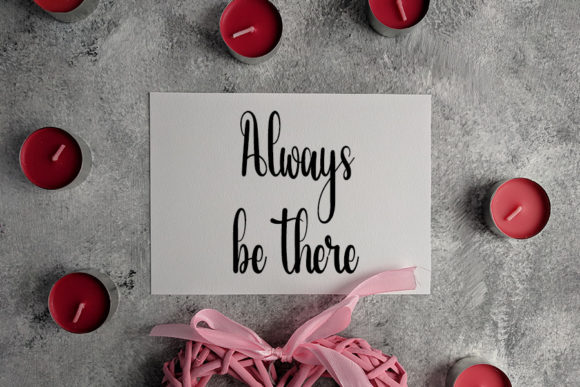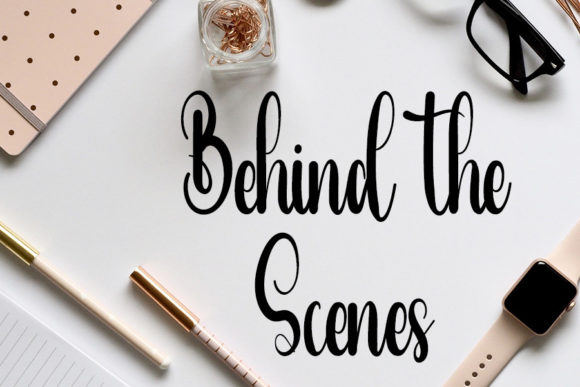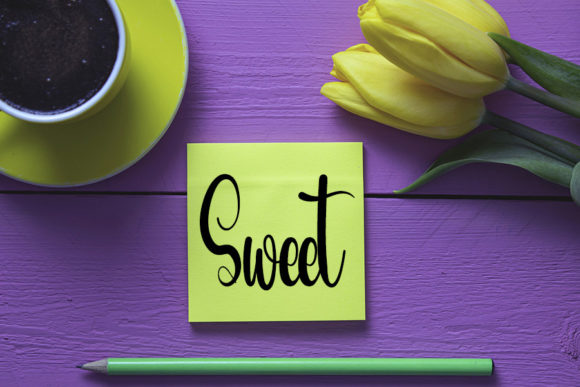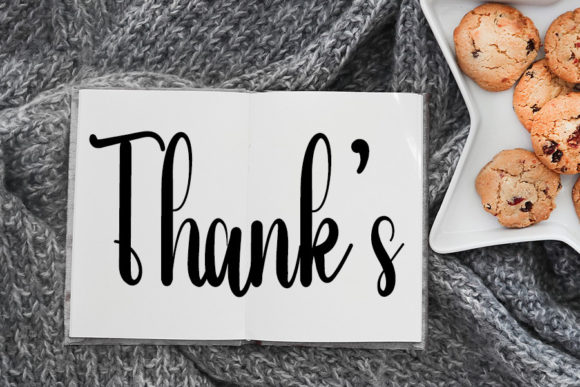
Beside You Font
About Beside You Font
Introducing “Beside You,” a lovely handwritten font designed to make your work stand out with its elegant and curvy lines. This font goes beyond mere type; it’s a carefully crafted design element that adds a touch of grace to your creative projects. Whether you’re working on product packaging, a branding project, magazine covers, social media graphics, wedding materials, or simply expressing words above a background, Beside You is the perfect choice.
The charm of Beside You lies in its delicate yet impactful design, which brings a sense of elegance to every character. Imagine using this font to enhance product packaging, where its graceful lines contribute to a refined and stylish presentation. Envision it in a branding project, adding a personal and sophisticated touch to your brand identity. Whether applied to magazine covers or social media visuals, Beside You becomes a versatile tool for creating eye-catching and memorable designs.
Beside You’s elegant and curvy lines make it well-suited for a range of applications, providing a timeless and classic aesthetic. Its versatility shines in various design contexts, allowing it to adapt seamlessly to diverse creative projects.
Choose Beside You as the font that elevates your work with its lovely handwritten style. Let its elegant and curvy lines add a touch of sophistication to your product packaging, branding materials, and more. Allow Beside You to be the creative element that makes your projects stand out, creating a visual impact that is both charming and memorable.